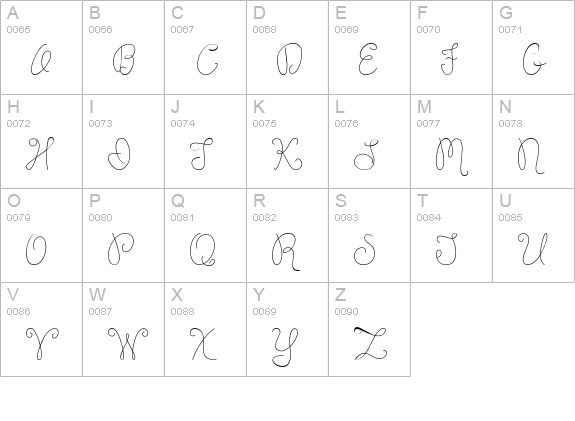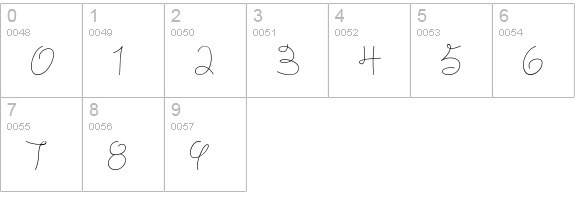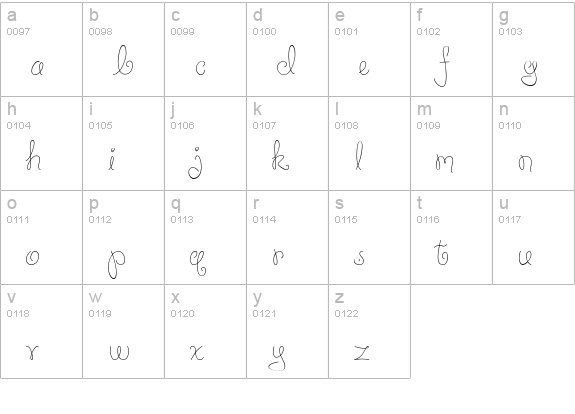
CK Curly Cursive Font Details
CK Curly Cursive is a charming and whimsical font that exudes elegance and playfulness. Its delicate and flowing cursive style, combined with intricate curly details, makes it perfect for adding a touch of sophistication to your designs. This versatile font is ideal for a wide range of projects, from wedding invitations to branding materials. What sets CK Curly Cursive apart is its unique blend of classic cursive elements with modern flair, giving your projects a timeless yet contemporary feel. Whether you're looking to create a romantic wedding invitation or a stylish logo, this font is sure to make a lasting impression. The best part? CK Curly Cursive is available for free download at FontsMarket.com. So go ahead and add this delightful font to your collection today and elevate your designs with its graceful charm and artistic flair.